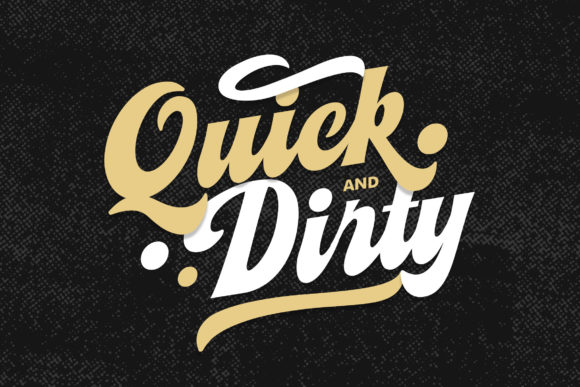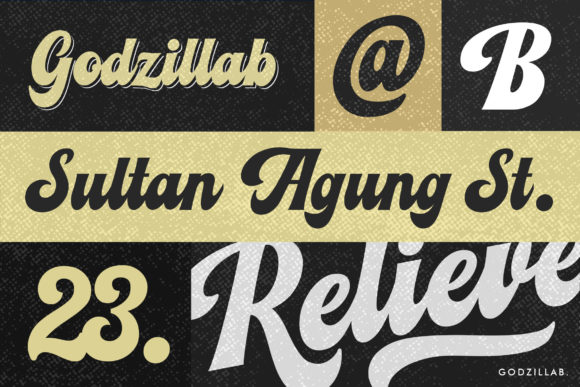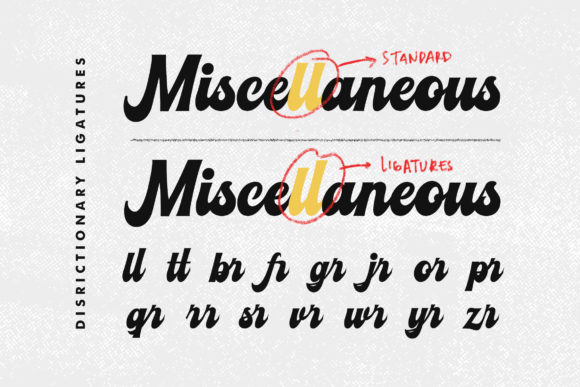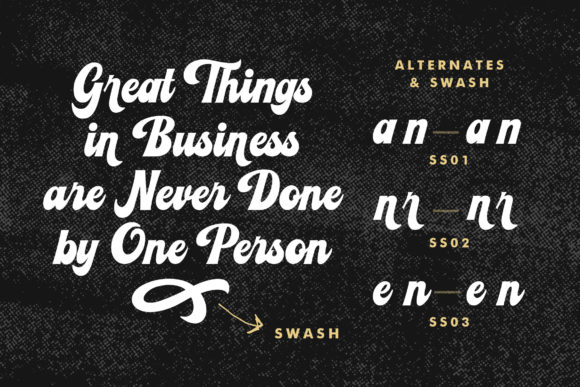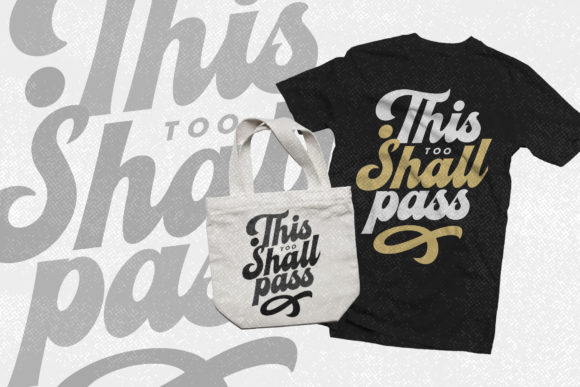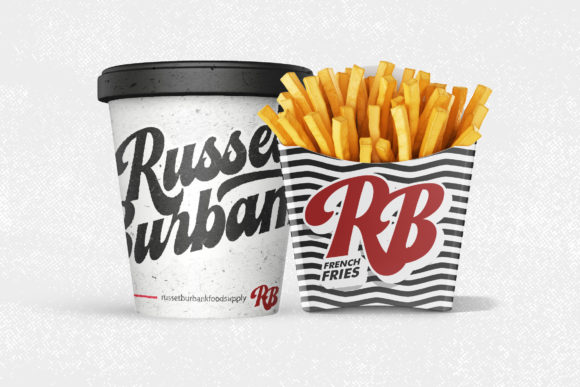
Introduction to Relieve Font Font
Fonts play a crucial role in design, and the Relieve Font font is a typeface that brings both character and versatility to any project. Whether you’re working on a branding project, a website, or a print design, the Relieve Font font offers a unique style that can elevate your work.
Relieve is a gorgeous and flowing handwritten font, designed with the help of an outstanding brush pen.
With an incredibly unique retro feel, this font is the right fit for your creative ideas .
Key Features of Relieve Font Font
Why Choose Relieve Font Font?
The Relieve Font font is more than just a typeface – it’s a design tool that helps you communicate your message with style and clarity. Its unique character set and versatile design make it suitable for a wide range of applications, from elegant invitations to bold headlines.
With its carefully crafted letterforms and balanced proportions, the Relieve Font font ensures readability and visual appeal across all mediums.
What makes Relieve Font font special?
The Relieve Font font stands out with its unique design, exceptional readability, and versatility across various design applications.